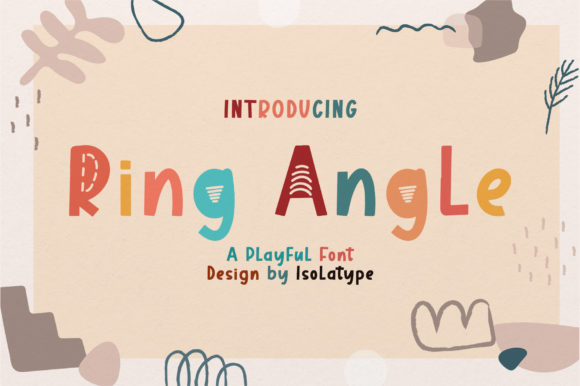
Prepare yourself to be enthralled by Ring Angle, a display font that exudes charm and playfulness through its captivating characters. Step into a world where your creative visions ignite with a newfound radiance, as Ring Angle transforms them into captivating masterpieces. This font not only adorns your designs with an enchanting touch but also empowers you to convey messages with an unforgettable flair.
Imagine your words dancing across the screen, each letter a vibrant and expressive entity, captivating the attention of your audience. Ring Angle's playful nature lends itself seamlessly to playful designs, such as whimsical invitations, cheerful posters, and enchanting branding. Its versatility extends beyond mere aesthetics, as it also proves to be a captivating choice for crafting captivating quotes and memorable headlines.
With Ring Angle as your creative companion, you'll discover a font that effortlessly elevates your designs, adding a touch of magic to every project. Embrace the joy of self-expression, let your creativity soar, and witness the transformative power of Ring Angle.
Let's dive into the captivating world of Ring Angle and explore its enchanting features:
• Its charming characters dance across your designs, leaving a trail of delight and enchantment.
• Its playful nature is the perfect match for whimsical invitations, cheerful posters, and enchanting branding.
• The captivating qualities of Ring Angle make it an exceptional choice for crafting memorable quotes and headlines.
• Experience the joy of self-expression, let your creativity soar, and witness the transformative power of Ring Angle.